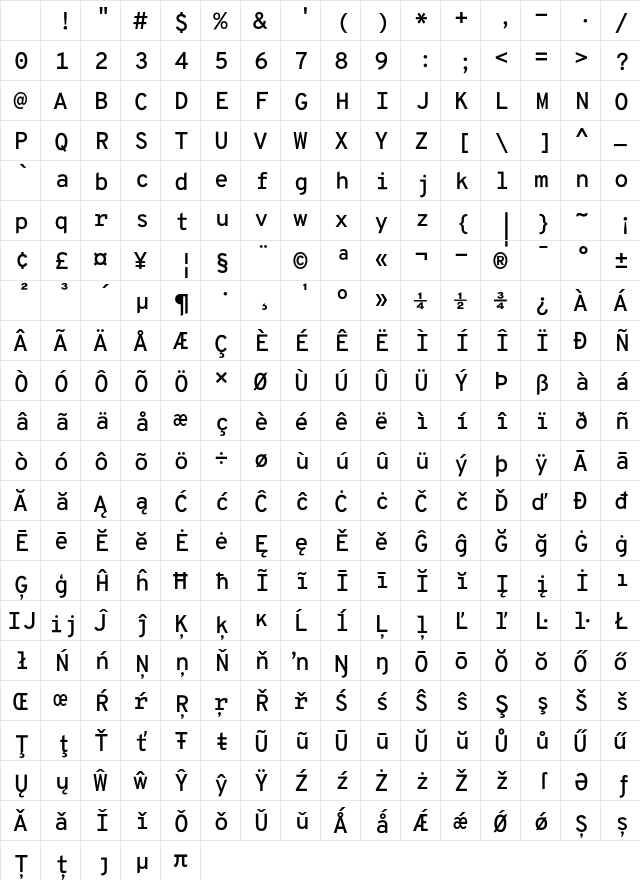
Complete OverpassMono Nerd Font Mono Bold glyph index. Displaying only characters natively supported by OverpassMono Nerd Font Mono Bold font.
OverpassMono Nerd Font Mono uses fixed-width spacing throughout, giving it the structured, systematic character associated with coding environments and technical documentation. Its bold stroke weight gives it real presence on the page.
Pro Tip: Use OverpassMono Nerd Font Mono with slightly increased line-height for extended reading - fixed-width spacing can feel dense in longer passages without extra breathing room.